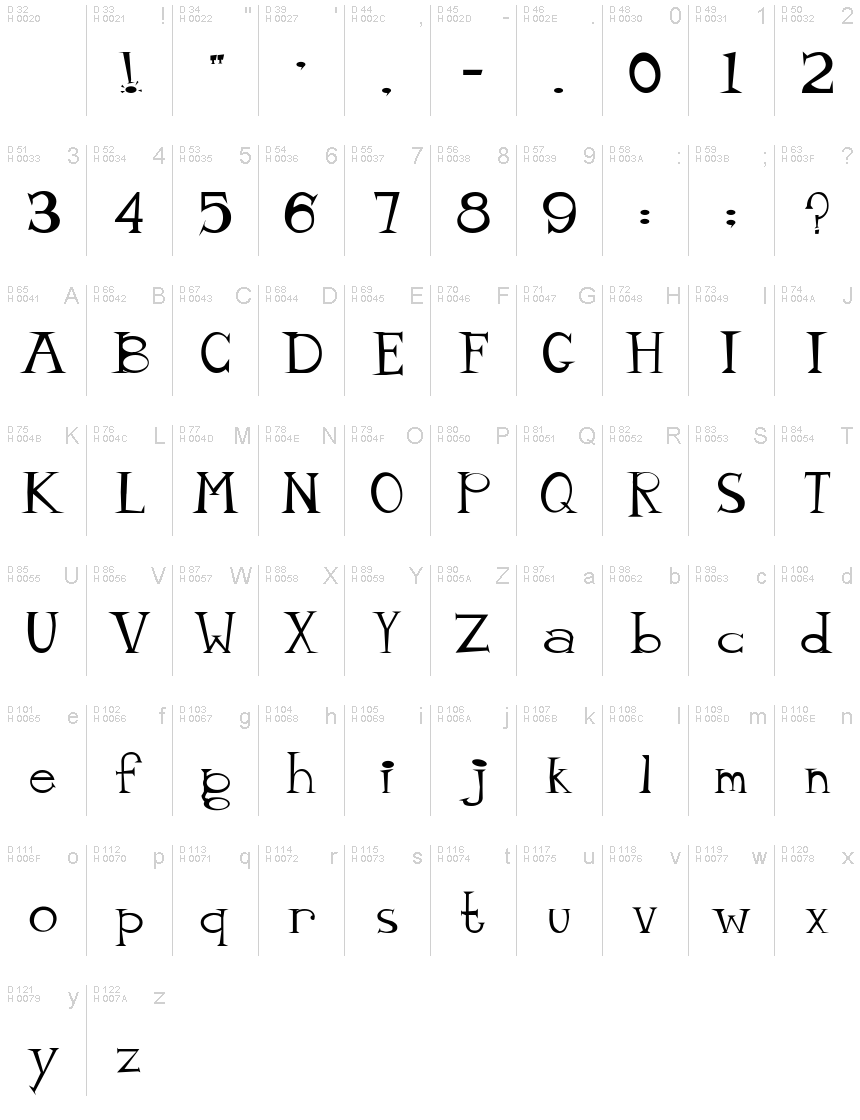
mister tate
Mr. Larry Tate is a captivating display font crafted by the talented team at Squaresville. This whimsical creation boasts a bold, cartoon-inspired aesthetic, with playful, organic curves and a touch of retro flair. Its distinctive character sets it apart, making it an excellent choice for eye-catching titles, logos, and branding applications.
The font's striking letterforms exude a sense of playfulness and charm, inviting the viewer to engage with the design. The slightly tilted baseline and varied stroke widths add a dynamic, hand-drawn quality, while the overall consistency ensures a cohesive and polished appearance.
Mr. Larry Tate's versatility shines through in its versatility, seamlessly transitioning from playful children's designs to bold, attention-grabbing headlines. Its unique personality can elevate a wide range of creative projects, from packaging and advertising to editorial layouts and social media content.
The font's striking letterforms exude a sense of playfulness and charm, inviting the viewer to engage with the design. The slightly tilted baseline and varied stroke widths add a dynamic, hand-drawn quality, while the overall consistency ensures a cohesive and polished appearance.
Mr. Larry Tate's versatility shines through in its versatility, seamlessly transitioning from playful children's designs to bold, attention-grabbing headlines. Its unique personality can elevate a wide range of creative projects, from packaging and advertising to editorial layouts and social media content.